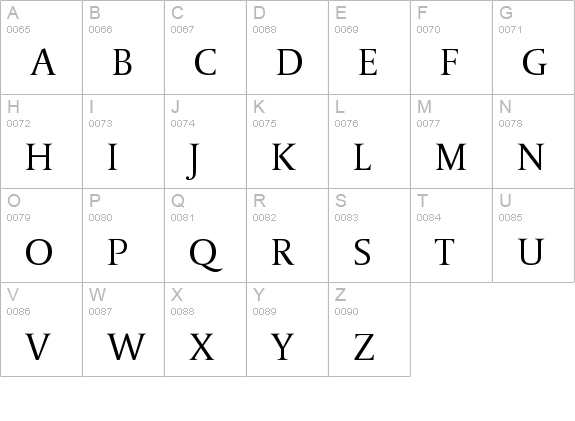
DTLParadoxTCaps Font Details
The DTLParadoxTCaps font is a striking display typeface that exudes elegance and sophistication. Its intricate design features unique letterforms with a fusion of traditional and contemporary elements, making it perfect for adding a touch of artistry to your projects. The font's distinctive characteristics make it stand out in both digital and print mediums, ensuring that your message is conveyed with style and flair. What sets DTLParadoxTCaps font apart is that it is available for free download at FontsMarket.com, making it accessible to all designers, creators, and enthusiasts alike. Whether you're working on branding, advertising, or editorial design, this font will elevate your work with its exceptional aesthetic appeal. Embrace the beauty and versatility of DTLParadoxTCaps font in your next creative endeavor and make a bold statement that captivates your audience.